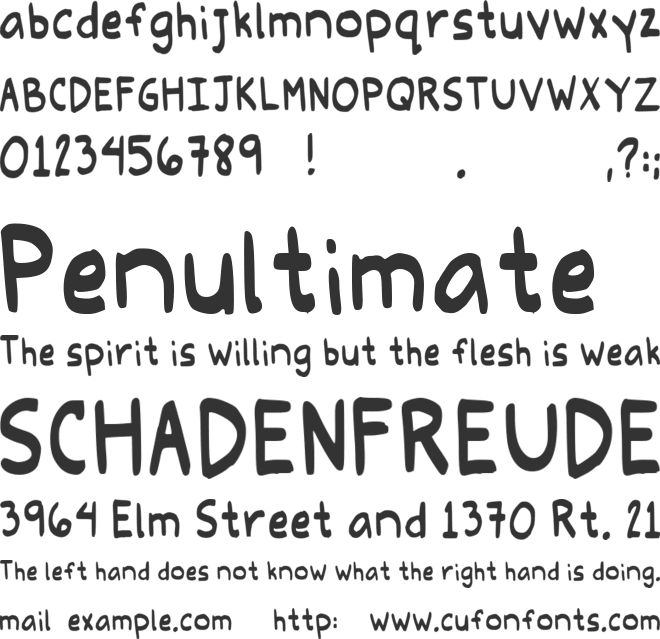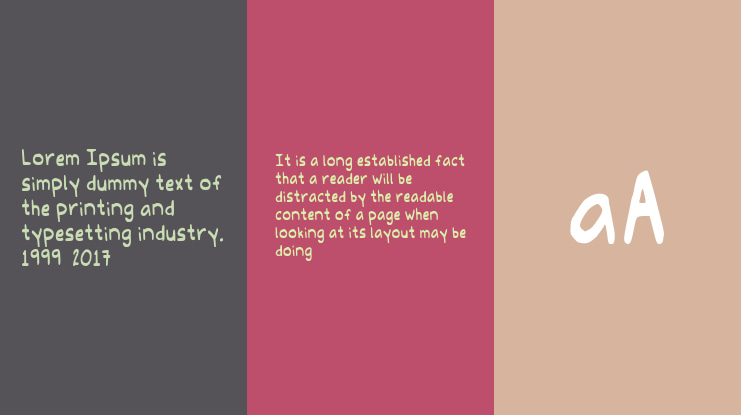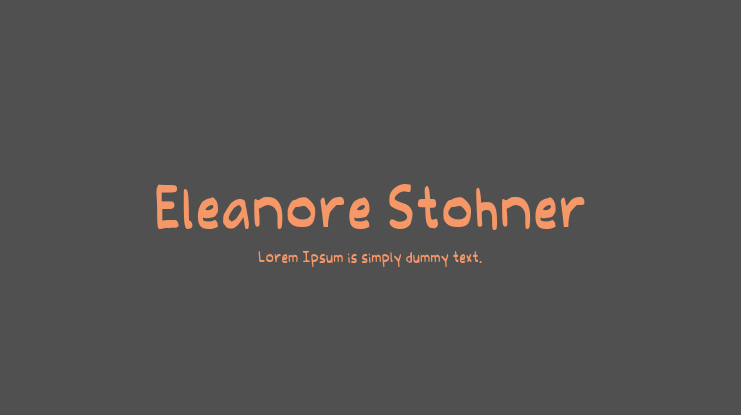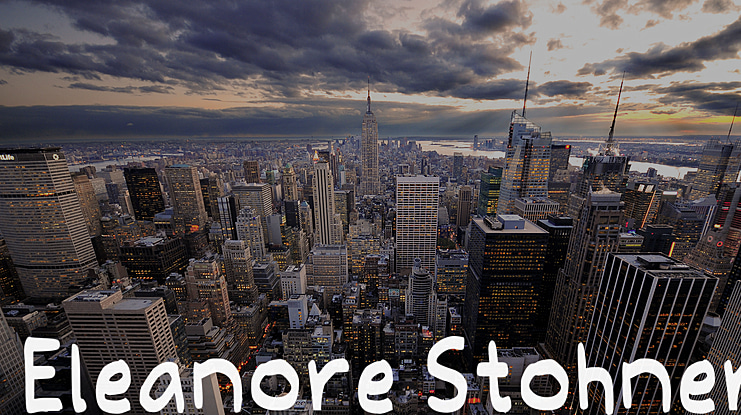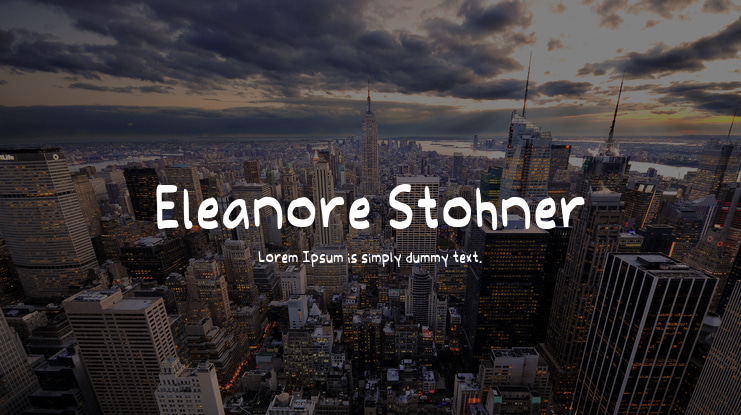
Eleanore Stohner Font
The capital letters look neat. This is the first font I made using a calligraphy pen so it's more like a mixture of my handwritings. Let me know what you think of it!